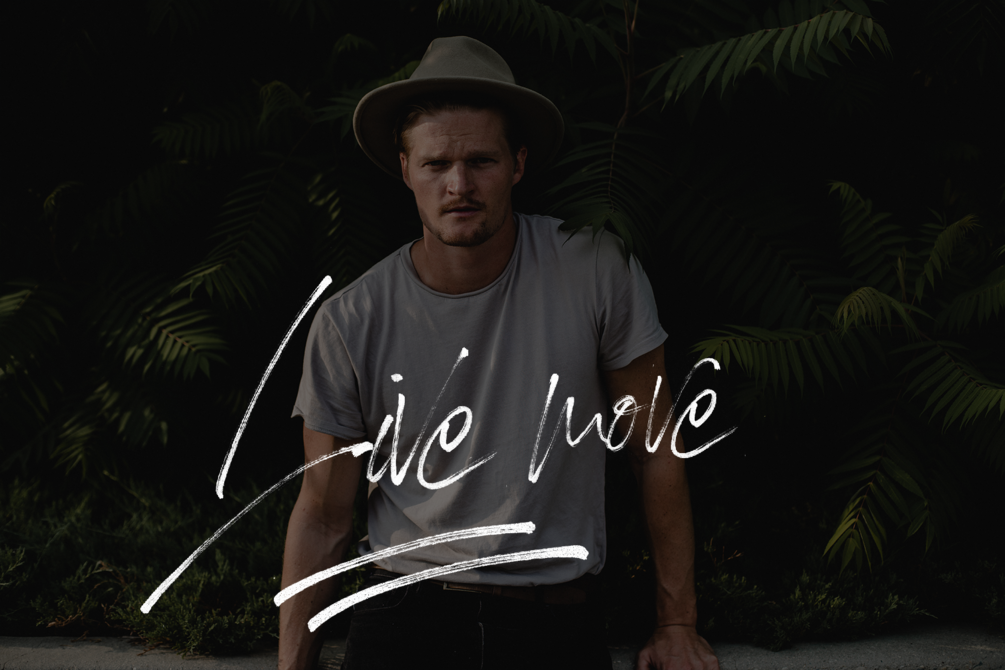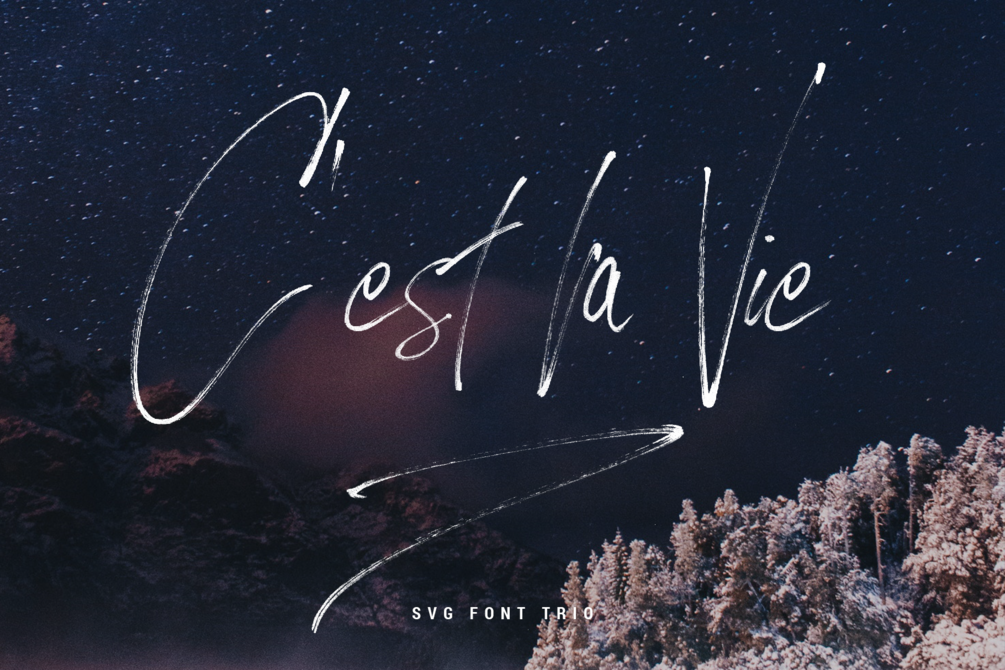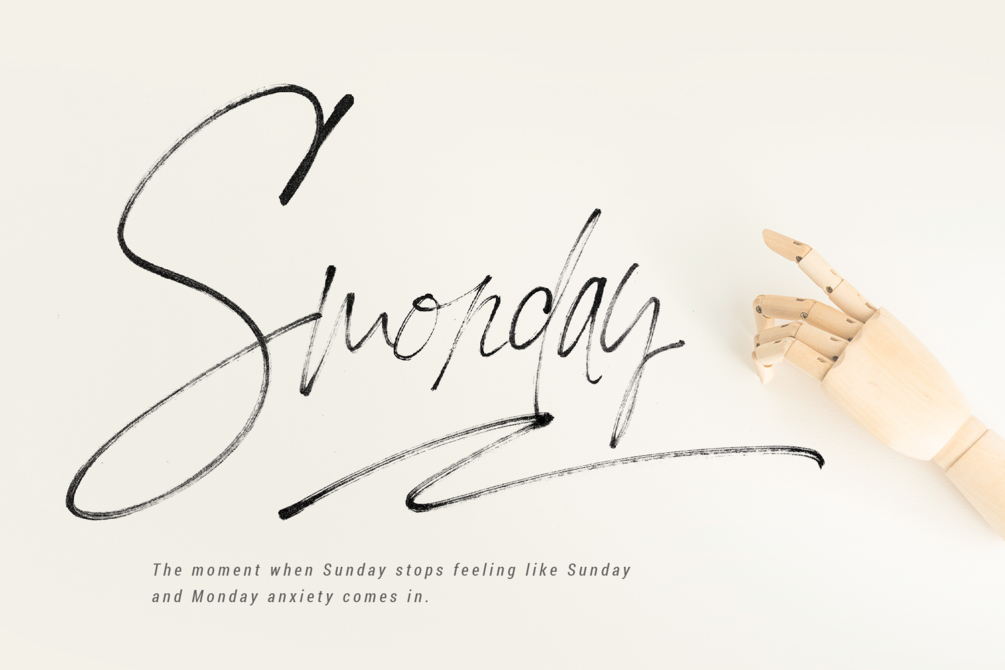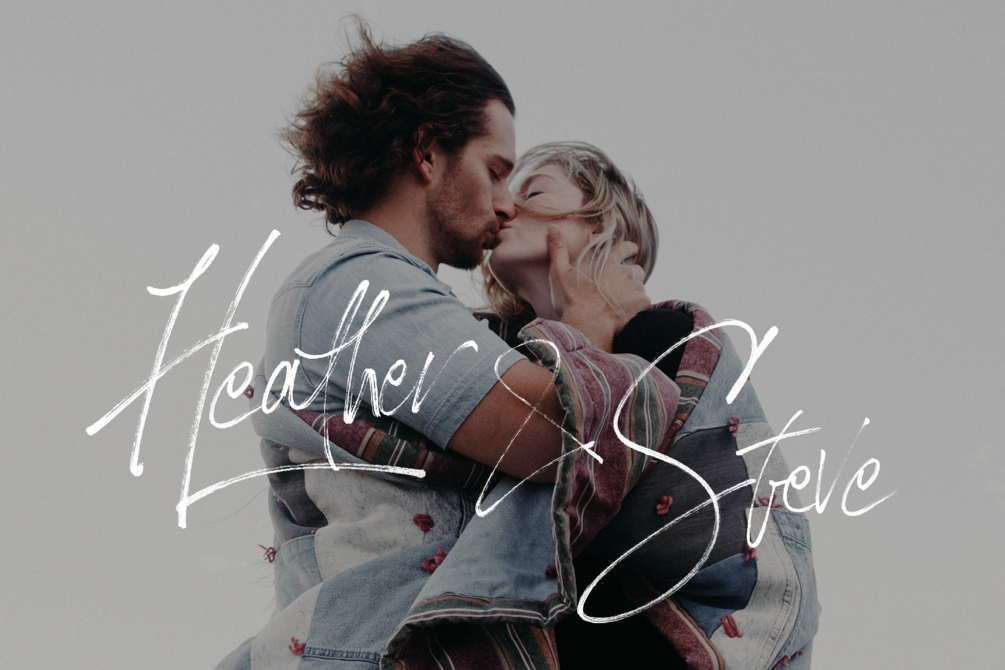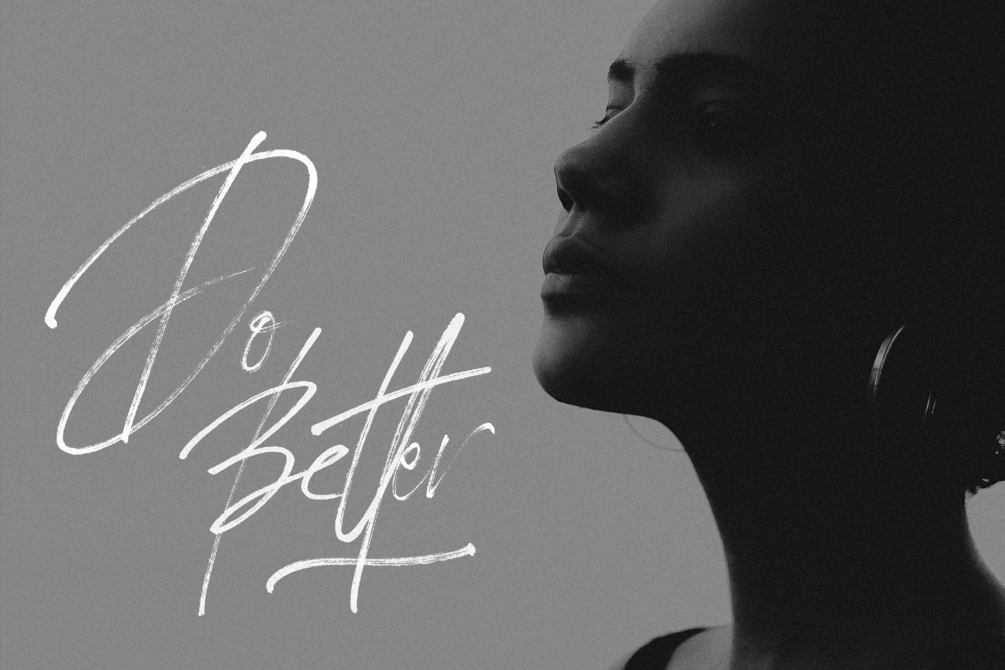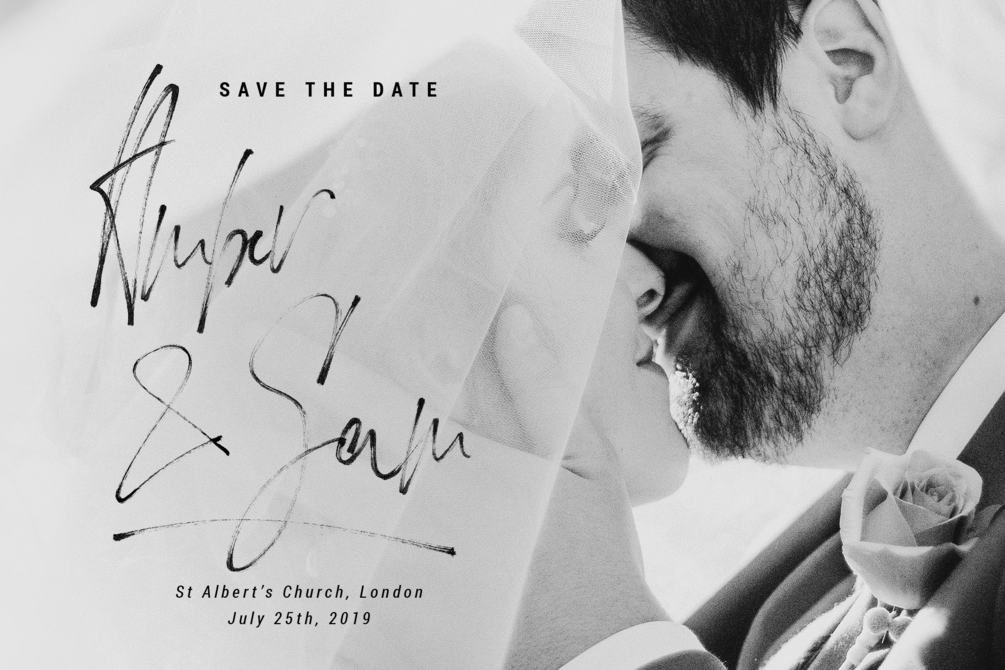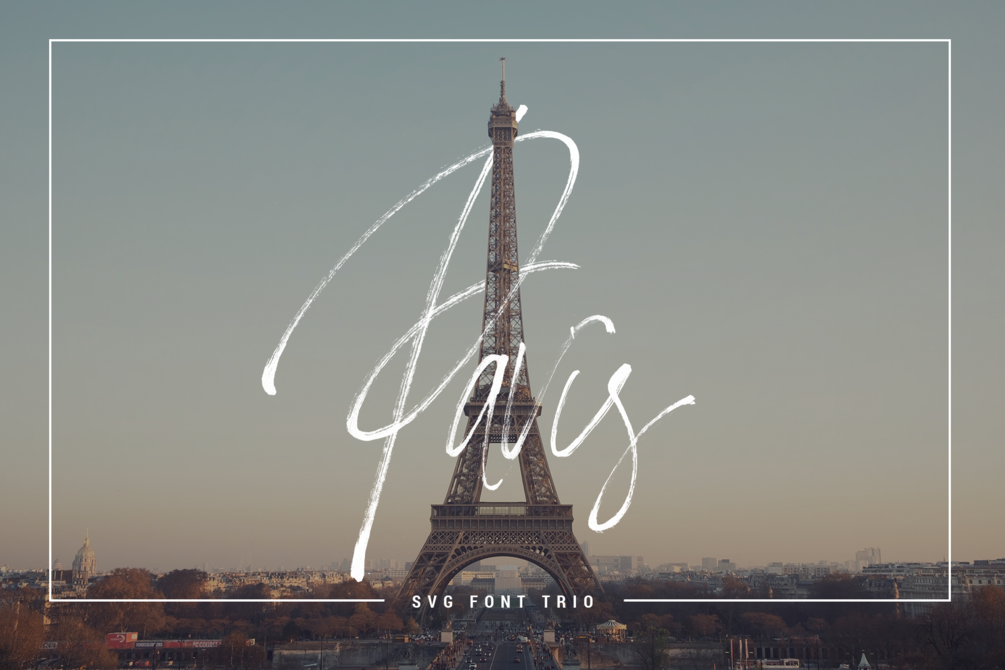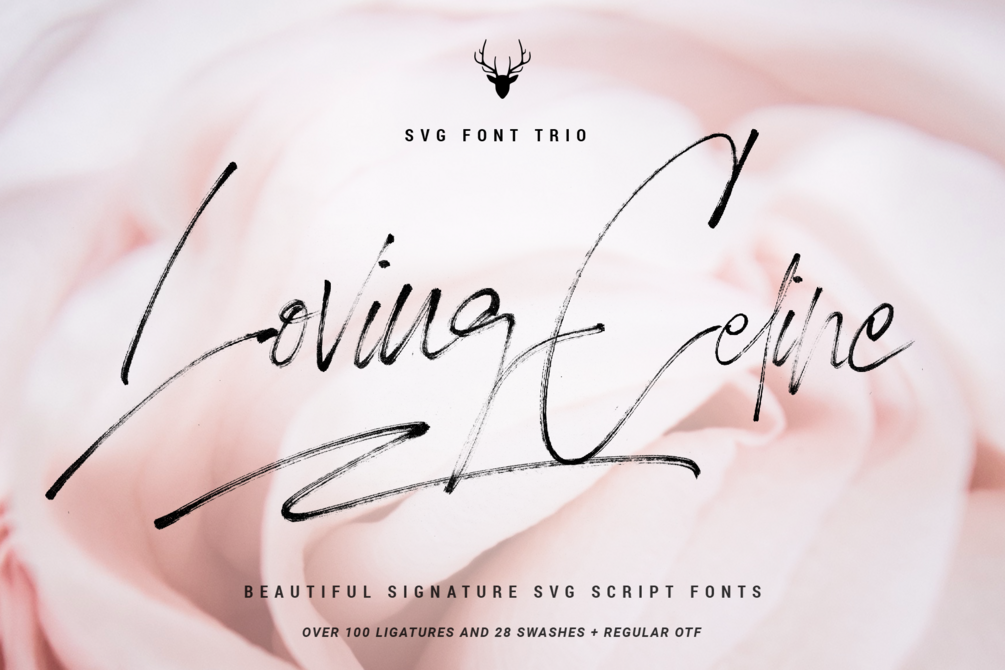
LovingCeline SVG Script Brush Font
Loving Celine Signature SVG Font Trio that has a true hand writing look and feel. This font trio includes 3 different SVG fonts, 3 matching solid OTF fonts, over 100 ligatures, 28 swashes and full language support, both in SVG and OTF format.